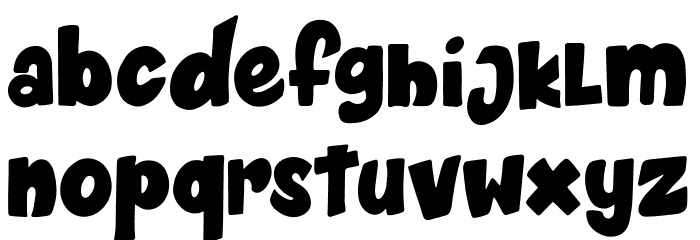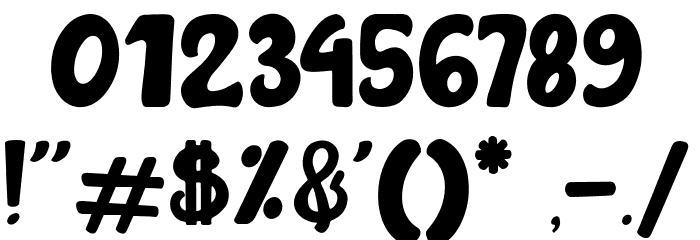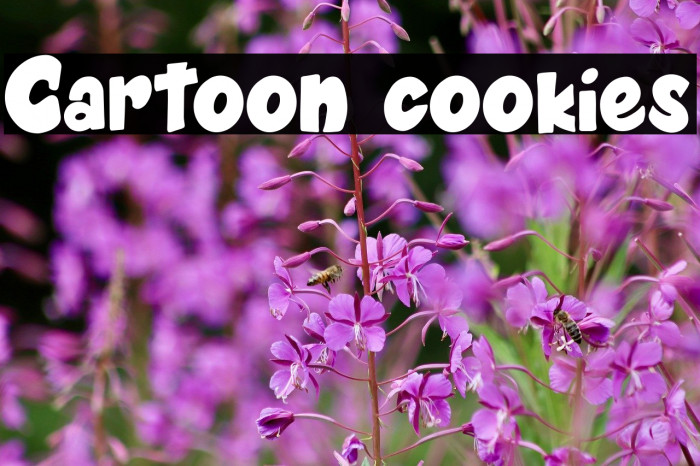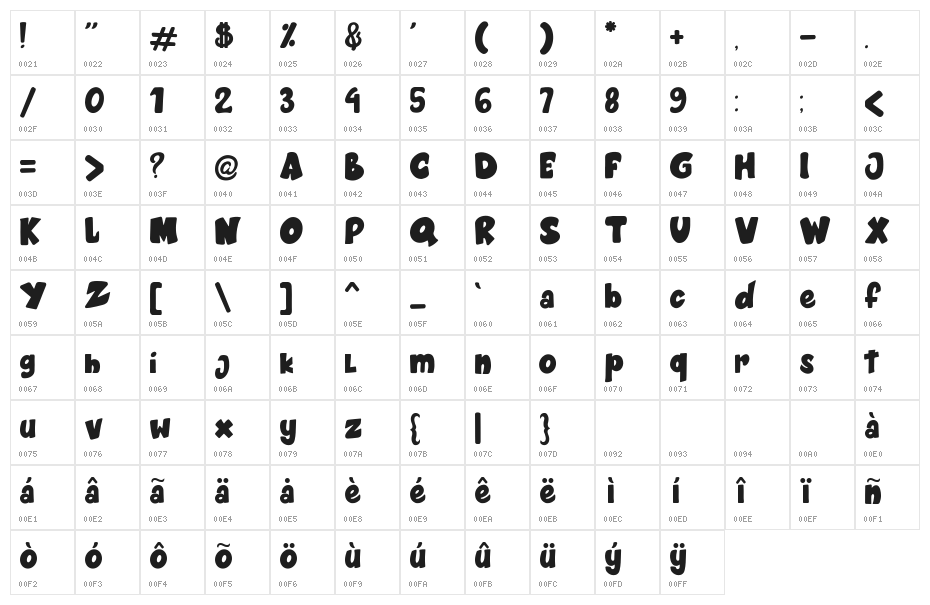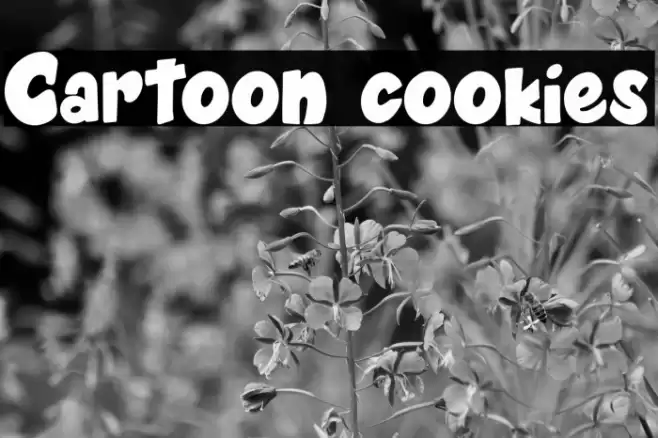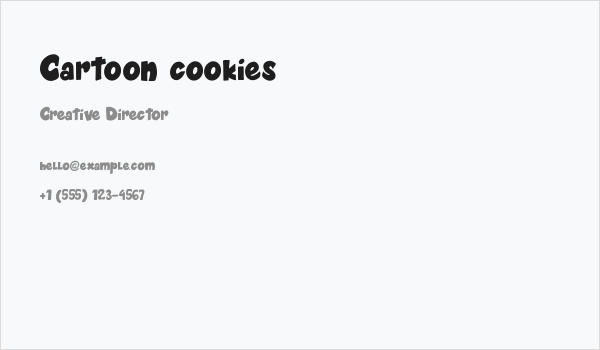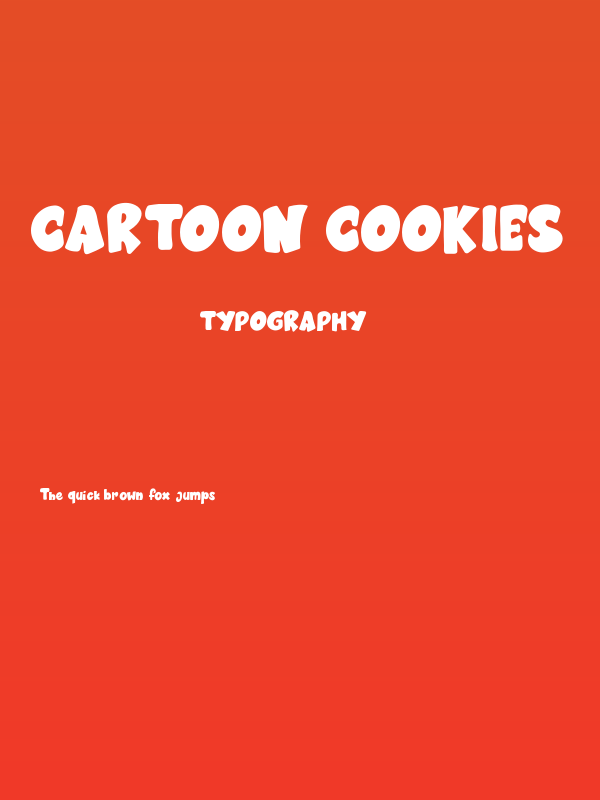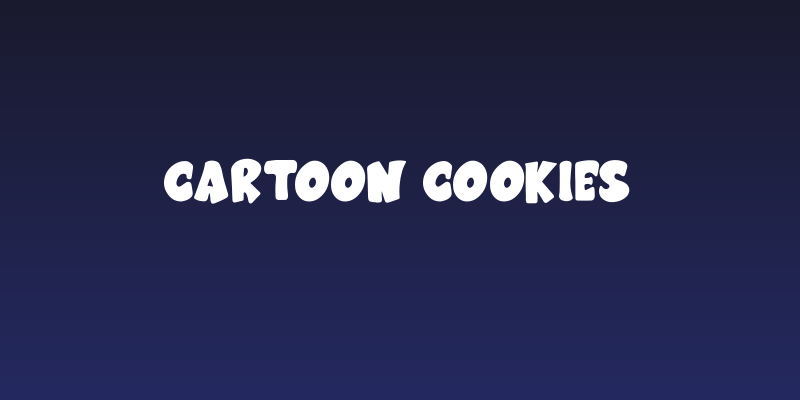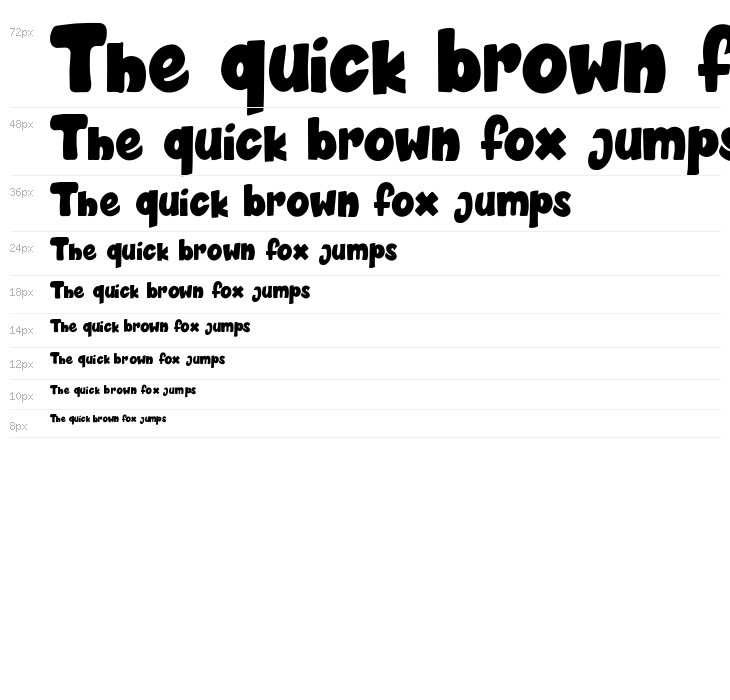
Cartoon cookies Font
This playful and bold font features thick, rounded characters that exude a whimsical and cartoonish vibe. The letters are slightly irregular, adding to the fun and informal feel. The font's exaggerated curves and soft edges make it ideal for projects that require a lighthearted and approachable aesthetic. The numbers and special characters maintain the same playful style, ensuring consistency across all text elements. This font is perfect for children's books, comic strips, or any design that aims to capture a sense of joy and creativity.
A playful, bold font with rounded, cartoonish characters.
- Proposed Projects: Ideal for children's books, comic strips, playful branding, and creative posters.
- Overall Style: Playful, Cartoonish